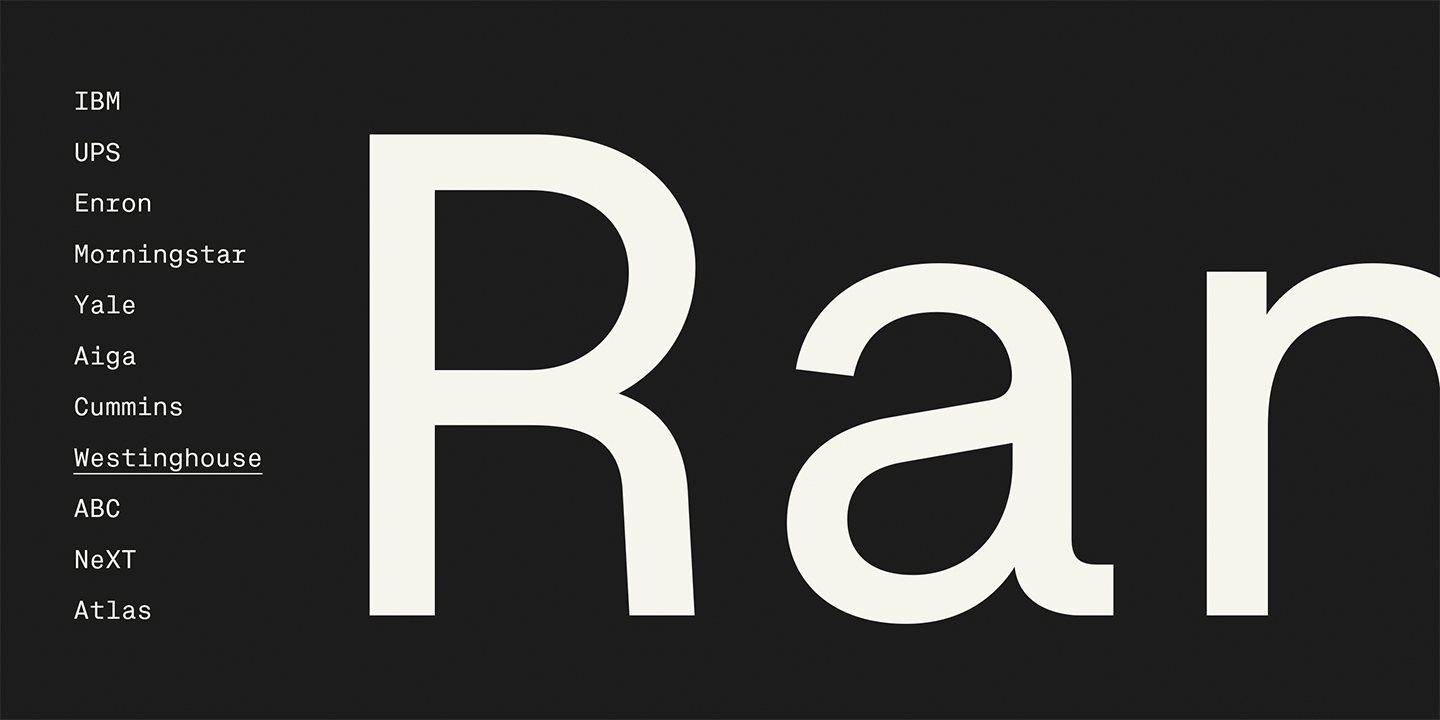
Approach Mono Free Download
Approach Mono Font Free Download
The Approach Mono Font is exceptionally well-suited for applications where consistent character width and readability are paramount, often bridging the gap between utilitarian and aesthetically pleasing. Its monospaced design makes it an ideal choice for coding environments, technical documentation, and data-heavy interfaces. It's perfect for user interfaces, terminal displays, and programming tutorials, ensuring uniform alignment and effortless readability. Furthermore, consider Approach Mono Font for branding for tech startups, innovative digital products, and any design aiming to evoke a sense of precision, efficiency, and modern craftsmanship. Its structured character also lends itself well to information graphics and scientific publications.
What makes the Approach Mono Font so exciting is its ability to deliver the functional benefits of a monospaced typeface without sacrificing visual appeal. It often features carefully balanced letterforms and open counters, designed to reduce eye strain during prolonged reading of code or data. This characteristic allows it to communicate a sense of reliability, clarity, and sophisticated utility, making your message resonate with an audience that values both form and function. It’s a font that doesn't just display text; it organizes information, adding a layer of controlled precision and contemporary appeal to any creative endeavor. Its distinctive aesthetic ensures your work will appear competent, orderly, and highly effective.
The Approach Mono Font family typically boasts a comprehensive range of weights to maximize its utility for various coding and design needs. You'll often find a wide selection, from Thin and Light to Regular, Medium, SemiBold, and Bold, usually accompanied by corresponding italic styles. More advanced versions might also include specific alternates for frequently confused characters (like '0' and 'O', 'l' and '1') and specialized coding ligatures to enhance clarity for programmers, providing unparalleled flexibility for developers and designers alike.